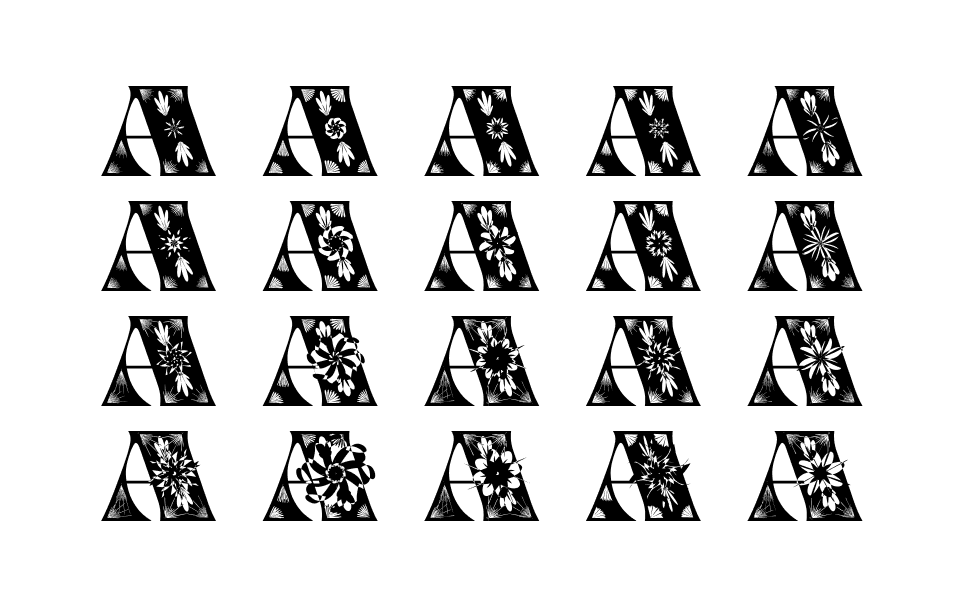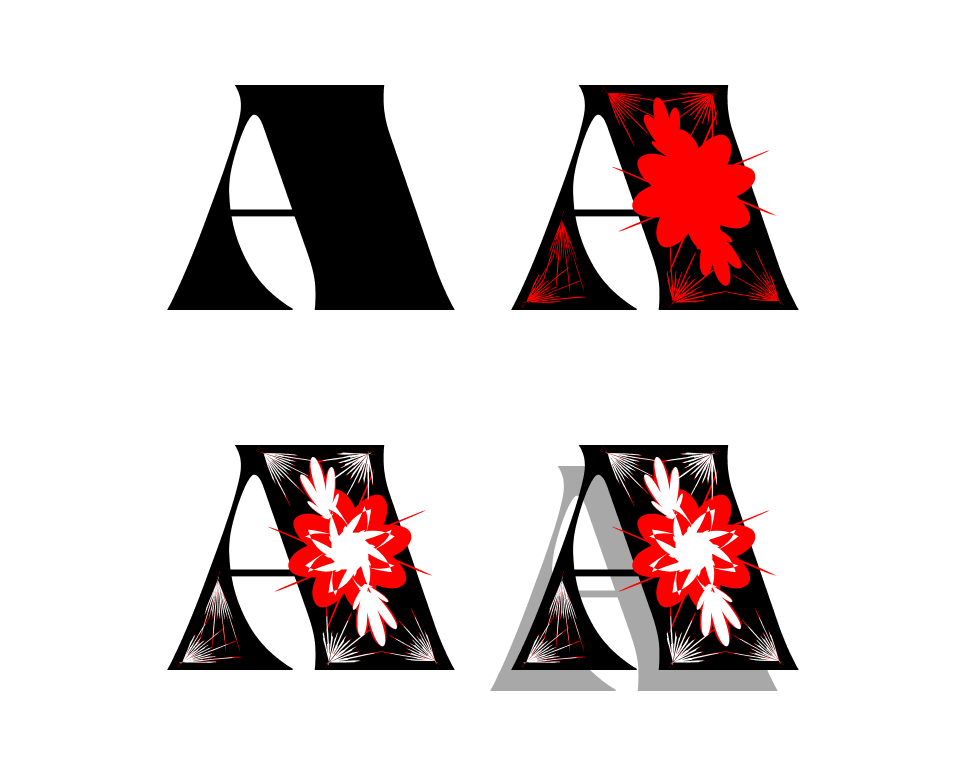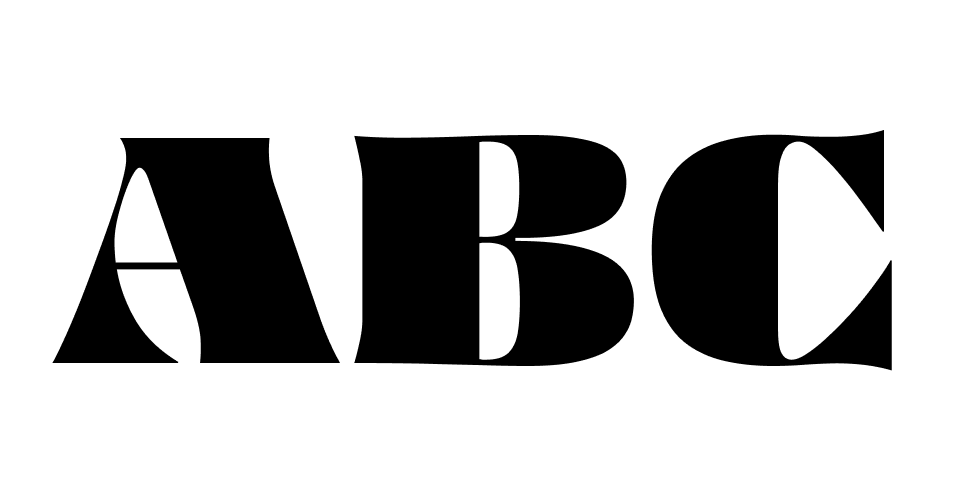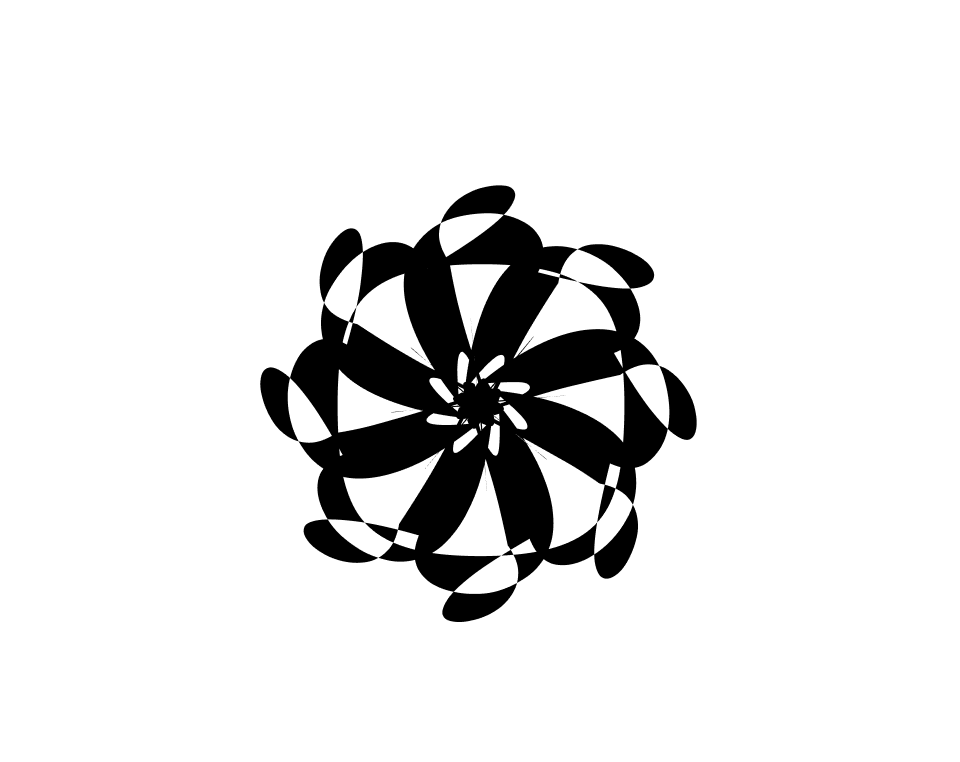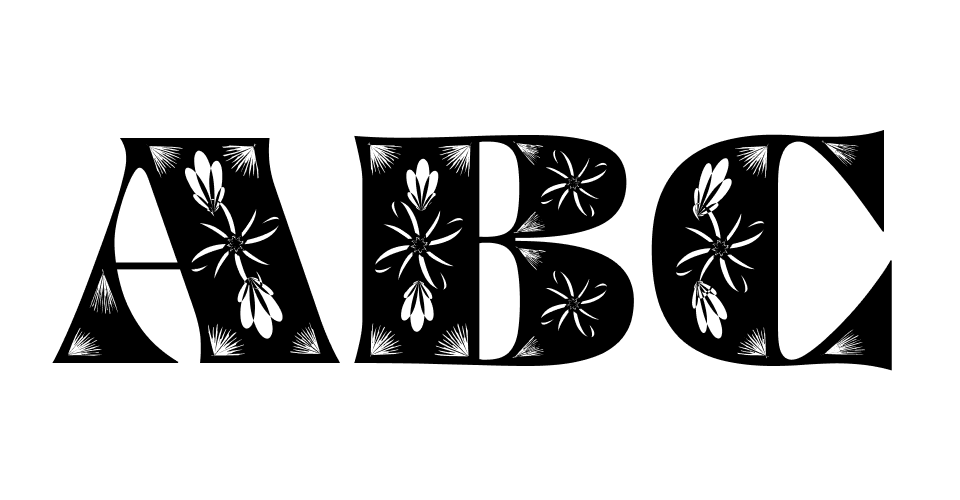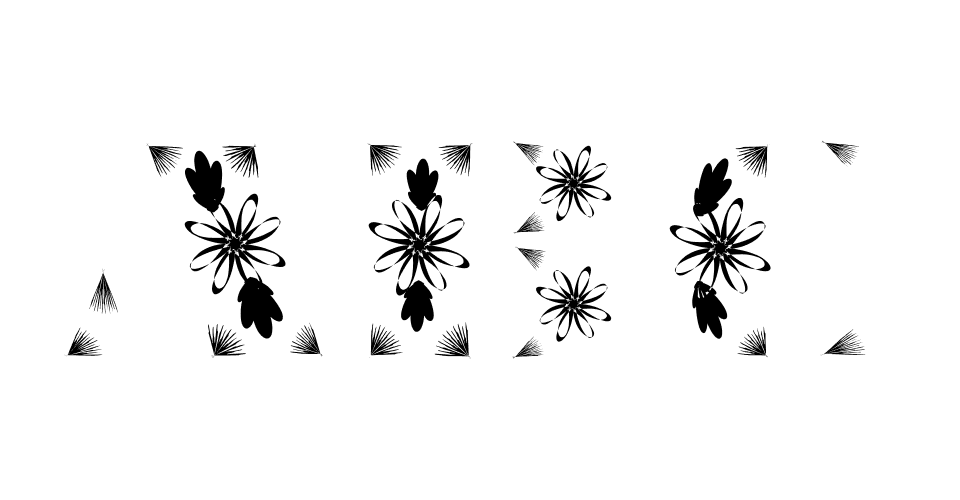
If you imagine the entire Bless Type System as a fancy cake, BM Bless is the base dough. Sturdy yet sophisticated, but most importantly functional and without frilly bits, it can be used for a plethora of display applications. Available as a static file, containing regular glyph outlines only.
If BM Bless is the base dough, then BM Bless 00 Var is the cherries, icing, and chantilly. It’s available as a variable font with nine ornament axes and one “stretch” axis, and it omits the regular glyph outlines. Designed as decoration to be used on top of BM Bless, but using it by itself might open doors to completely unexpected aesthetics.
When you finaly assemble your cake, putting the cherries and icing onto your base dough, the cake is complete. BM Bless Var is the fully mounted type system in all its glory, offering the user ornate letters with an enormous breadth of customisation. Available as a variable font, with both ornaments and glyph outlines.
The fonts of the BM Bless Type System work well by themselves, but they really meant to be used following a layering principle. Each font can play a different role in this layering hierarchy and colours will very quickly and definitely bring depth to your designs. Now add movement to this and imagine how this could look as an animation!
To make the use of the BM Bless fonts more easy, we devised 25 instances to choose some of the nicest shapes without having to shape them yourself. These shapes are divided into 5 groups, each holding 4 different levels of intensity. But these are only some of the quasi endless designs, so don’t hesitate to push things further.
Activate the ORNM feature to swap the Bullet glpyh against a selection of ornaments, which could be used, for example, as border elements.